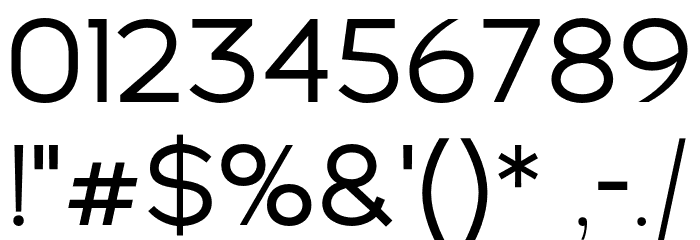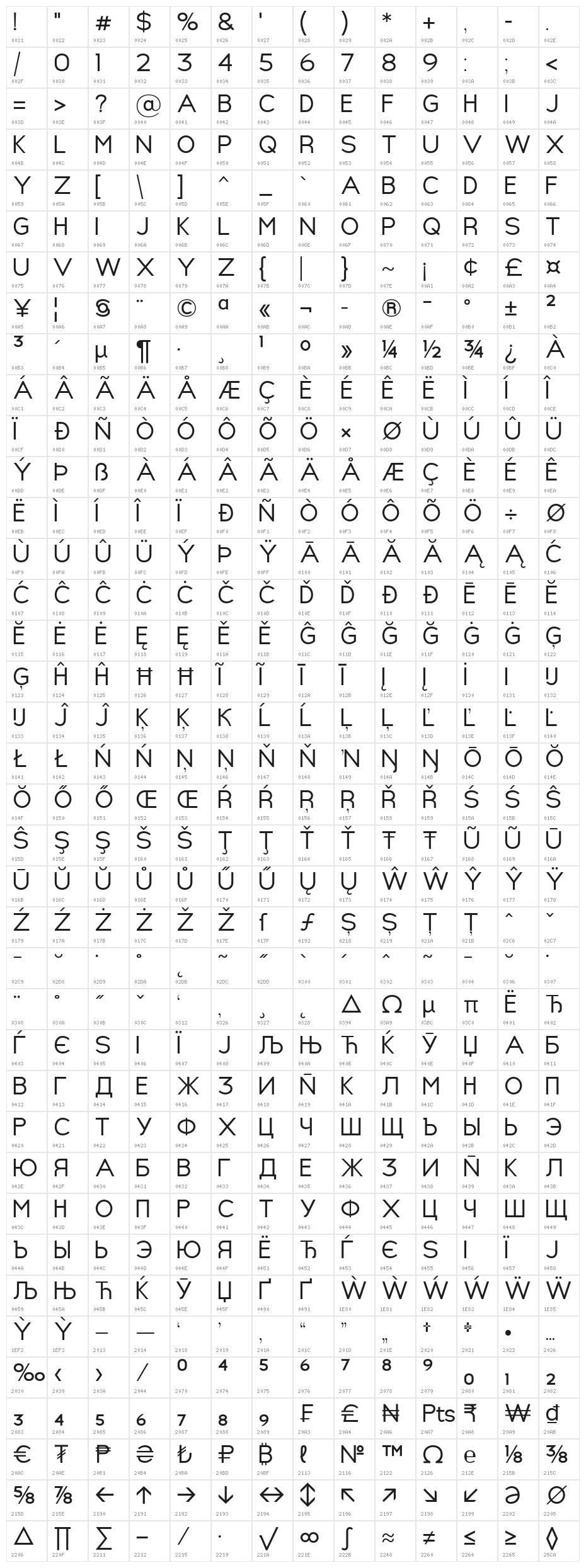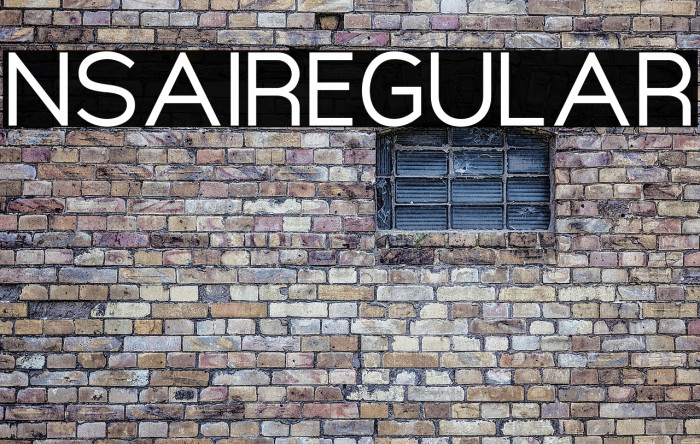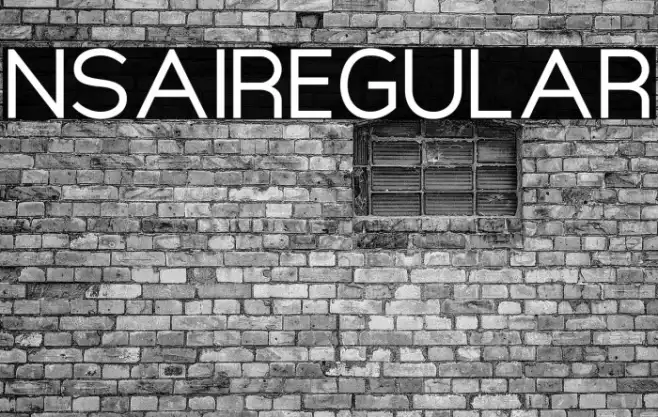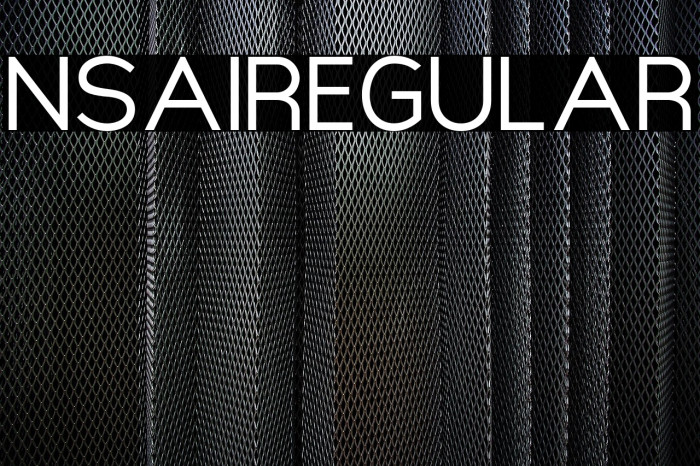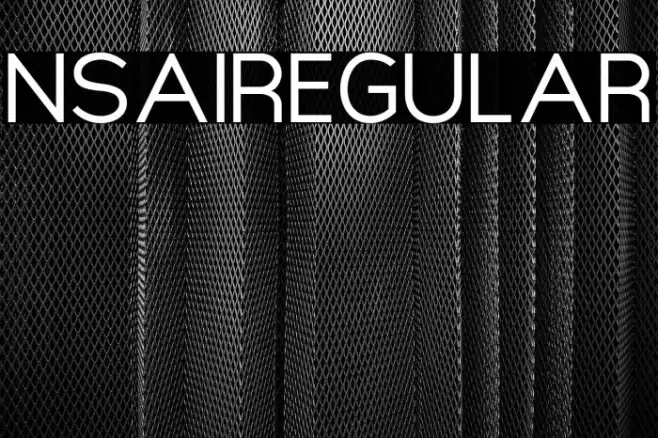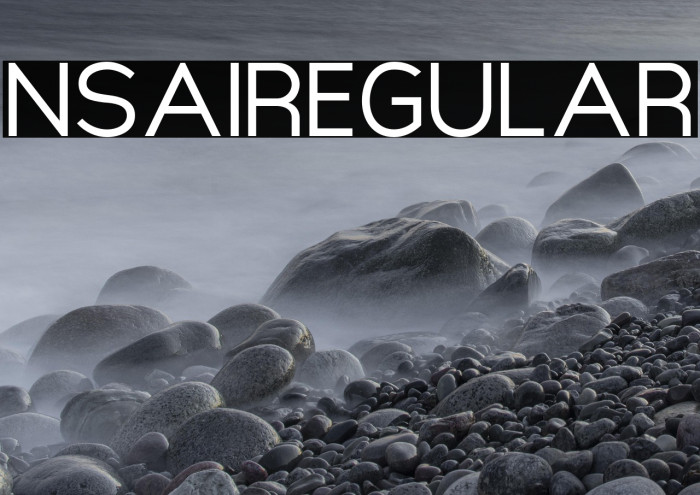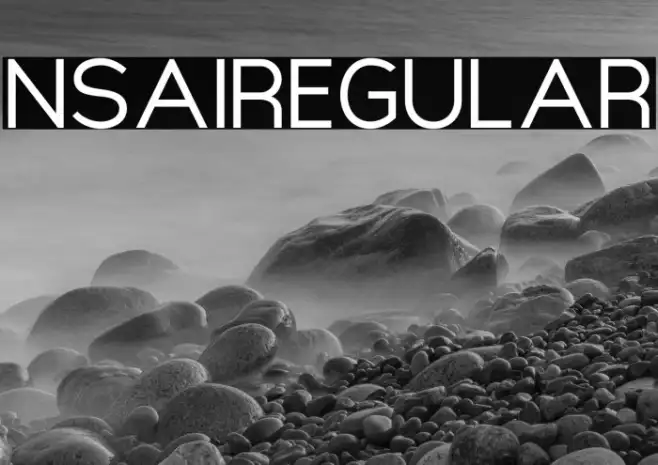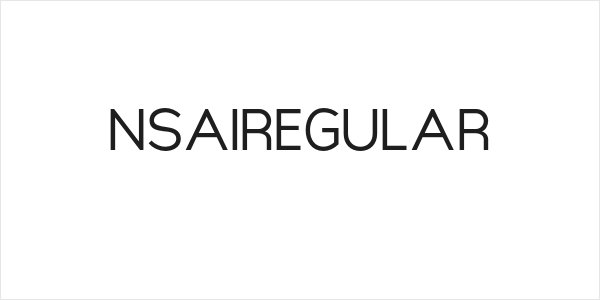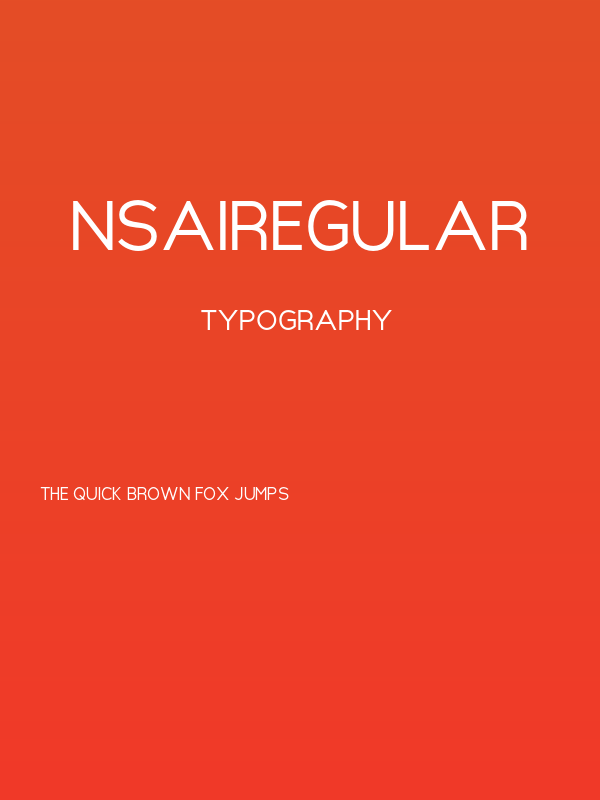
NsaiRegular Font
NsaiRegular Description
This font features a clean and modern sans-serif style with a geometric structure. The characters are evenly spaced, providing a balanced and harmonious appearance. The uppercase and lowercase letters maintain a consistent height, contributing to its uniformity. The numerals are straightforward and align well with the overall design, making them easily readable. Special characters are designed with simplicity, enhancing the font's versatility. Its sleek and minimalistic design makes it suitable for a wide range of applications, from digital interfaces to print media.